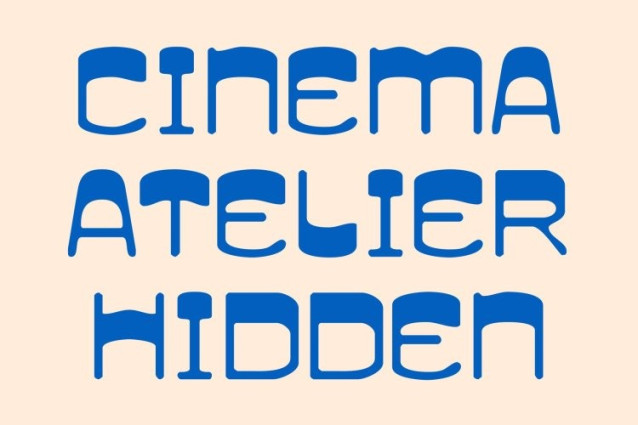
CS Finder Drawn Font
CS Finder Drawn Font This is a reverse contrast display font designed to blend playful energy with bold visual style. Its unconventional weight distribution brings immediate character, while the clean sans serif structure keeps the design modern and approachable. This unique mix results in a typeface that feels fun, stylish, and striking perfect for designers who want to break the rules with confidence.
Bold Shapes with Modular Aesthetics
The modular construction of this font gives the font a structured yet creative presence. Each letter features bold shapes, geometric influence, and thoughtful detailing, creating a rhythmic flow across your layouts. The reverse contrast adds a surprising twist, making the typography feel experimental and distinctly contemporary.
Perfect for Posters, Branding, and Editorial Layouts
This font shines in designs that celebrate playful visual movements and expressive layouts. Its eye-catching structure makes posters feel dynamic, headlines feel memorable, and branding feel unmistakably unique. Whether you’re working on event graphics, modern campaigns, or editorial compositions, this font delivers bold impact with a creative edge.
Ideal for Distinctive Branding and Promotions
For brands seeking originality, this font offers a fresh identity rooted in creativity and bold aesthetics. Its modular personality helps shape distinctive logos, promotional materials, packaging, and digital assets.